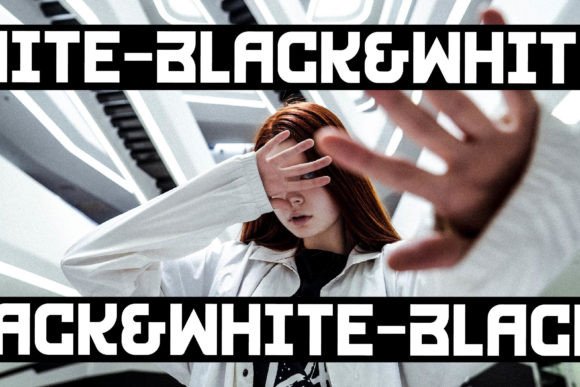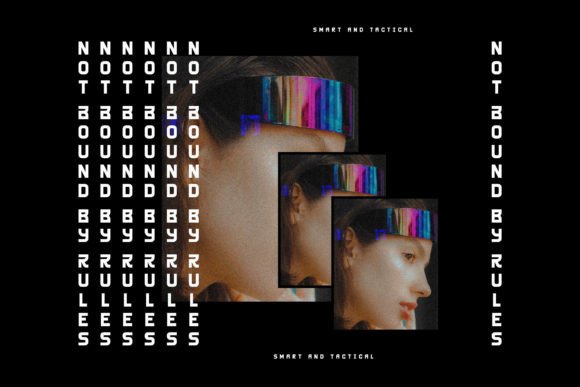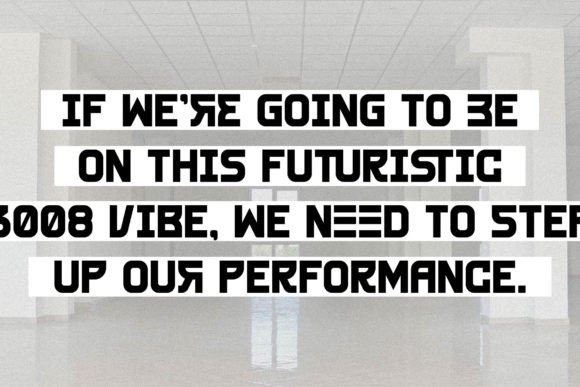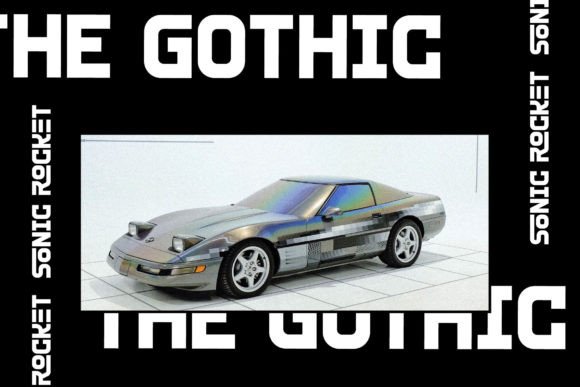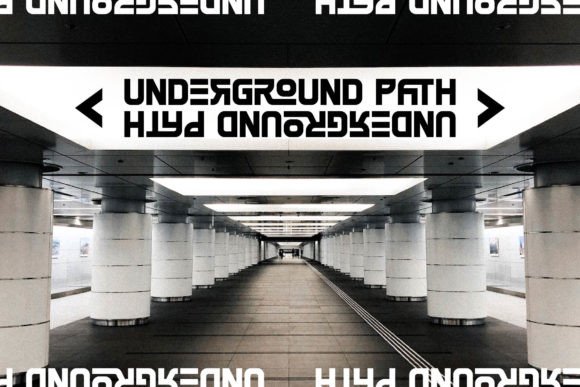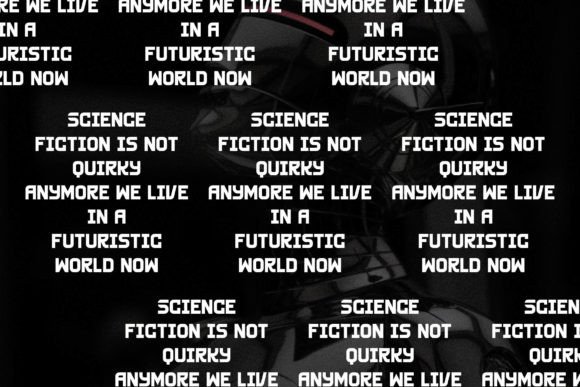
Introduction to Ranger Font
Have you ever found yourself in the middle of a creative project, frantically searching for the perfect font to bring your vision to life? The hours tick by, and the options seem endless, until you stumble upon that one font that makes your heart skip a beat. For designers, this moment is priceless, and it’s what makes the discovery of the Ranger Font so thrilling.
This stunning sans-serif font is a game-changer for any creative project, from elegant logo designs to luxury book titles. Its modern and classy aesthetic is sure to make your work stand out, and with its PUA encoding, you’ll have access to all the glyphs and swashes you need to take your design to the next level.
Ranger Font
- Comes with a transparent background, allowing for easy customization and blending with other design elements.
- Features a clean and modern design, making it suitable for a wide range of applications, from branding to digital art.
- Available in multiple font sizes, with a standard resolution of 1024 x 1024 pixels, ensuring crisp and clear display.
- Designed to be highly legible, even at small font sizes, making it an excellent choice for body text and headings.
Honest Review: Ranger Font
I recently came across the Ranger Font and was excited to give it a try for my next design project. After using it, I can confidently say that it’s a great addition to any designer’s toolkit.
What works well with Ranger Font is its high-quality design and the fact that it’s available for free download. The font’s unique style and creative flair make it perfect for any project that requires a touch of ruggedness, from outdoor-themed websites to adventure-inspired magazines.
The font also has a transparent background, making it easy to work with and combine with other design elements. I was able to use it seamlessly in my design software, and the results were amazing.
What I Like:
- ✨ Unique style
- ⚠️ Limited font sizes available (would be nice to have more options)
- ⚠️ Not ideal for body text (works best for headlines and titles)
Overall, I’m really impressed with the Ranger Font and would recommend it to any designer looking for a high-quality, free design resource for their creative project.
Ranger Font is ideal for creating social media graphics, presentations, and marketing materials. Its high-quality design and transparent background make it a versatile resource for any creative project.
Playfair Display is an elegant and luxurious serif font that is perfect for creative projects that require a touch of sophistication. It is a high-quality font that is available for free download, making it a great design resource for designers who want to add some flair to their projects. Playfair Display features a transparent background and is ideal for use in logos, brochures, and websites. It compares to Ranger Font in its elegant aesthetic, but with a more refined and sophisticated feel.